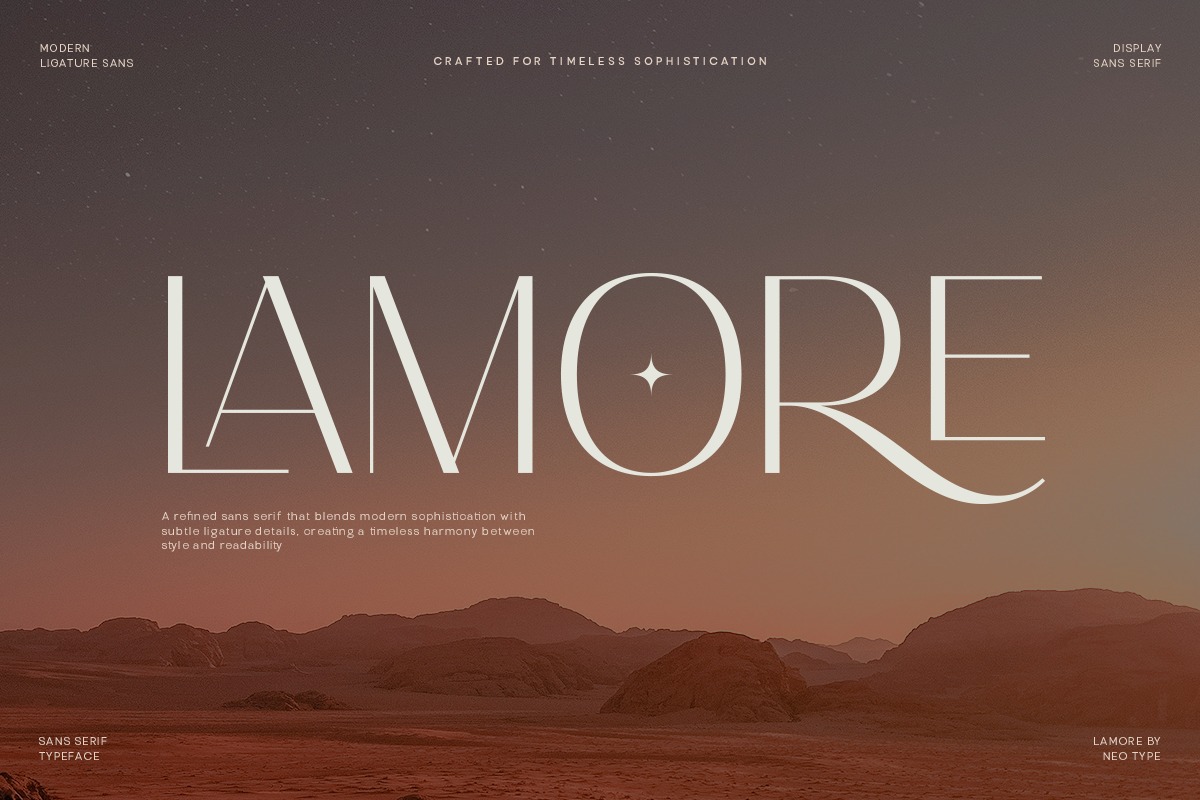
NT Lamore – Clean Sans Font
NT Lamore – Clean Sans Font is a versatile font designed to adapt beautifully across different design styles, offering dependable readability and balance. Lamore is a minimalist clean sans serif display font introduced as a modern alternative to Radiant. Designed by Neotype, Lamore offers refined geometry, smooth curves, and strong visual clarity—making it perfect for designers looking for a cleaner, more contemporary option with the same bold presence. Ideal for branding, logos, editorial layouts, and any project that needs a fresh and stylish display typeface.